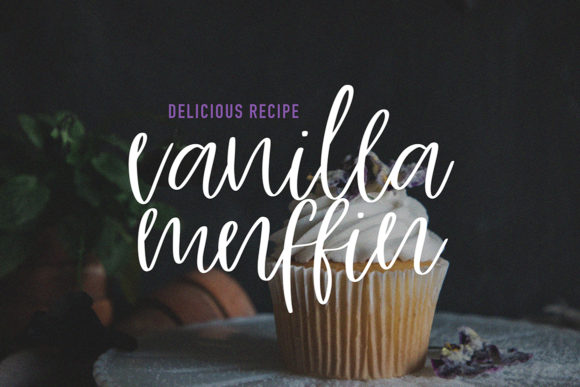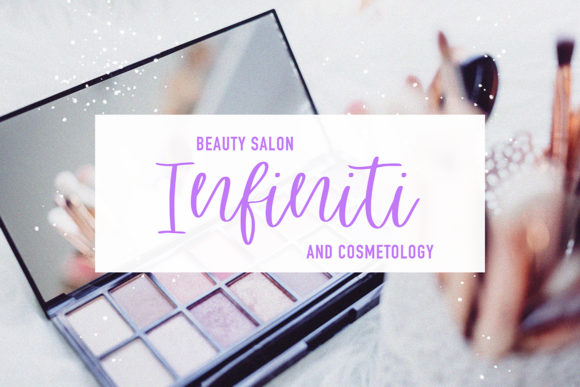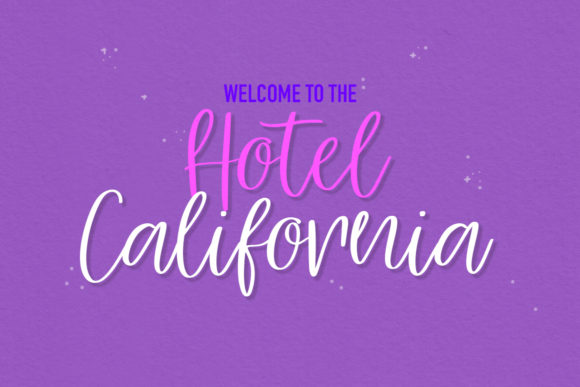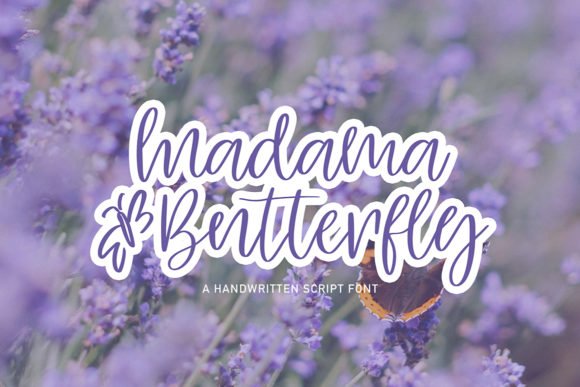
Introduction to Madama Butterfly Font
Madama Butterfly is a cheerful and friendly handwritten font.
It will elevate a wide range of design projects to the highest level, be it branding, headings, wedding designs, invitations, signatures, logos, labels, and much more .